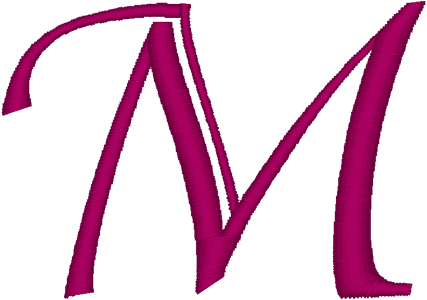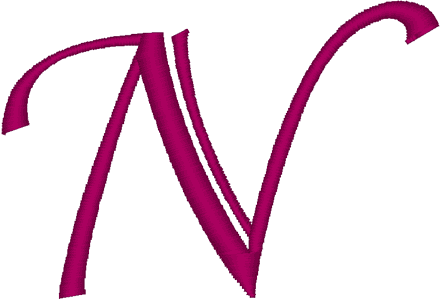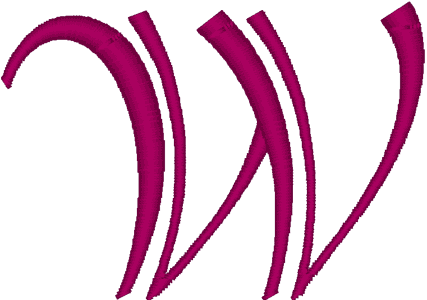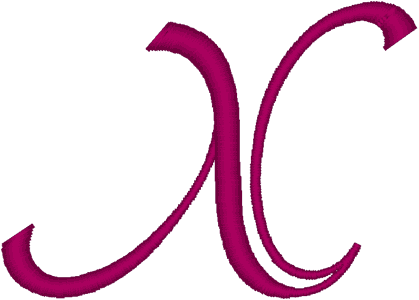
Adorable Font Alphabet
Digitized from the popular "Adorable" font, these quick-to-stitch letters and numbers are very classy and quietly elegant for very pretty monograms or anytime you need an attracitve alphabet.